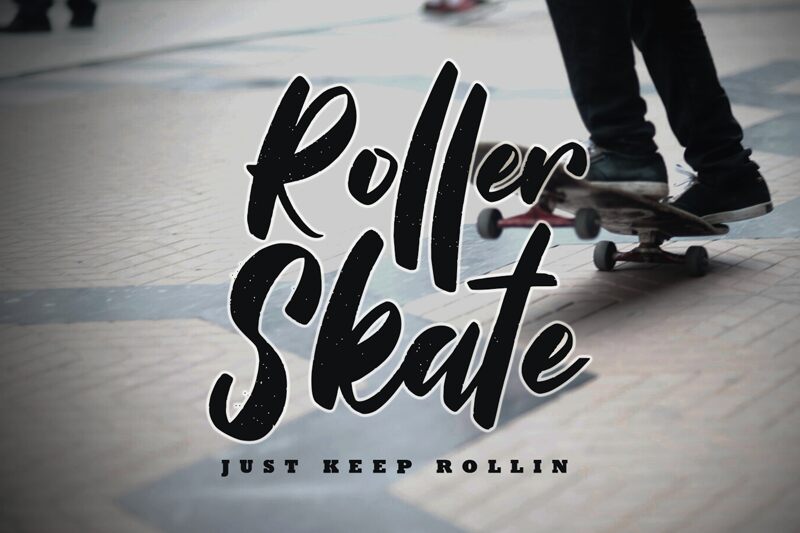
Roller Skate
Roller Skate, the latest brush font by talented designer Mengulirpena_2022 (Deny Dwi Kurniawan), is perfect for adding a touch of fun and whimsy to any project. With its semi-condensed width and playful brush strokes, Roller Skate is suitable for a wide range of projects including children's books, party invitations, social media graphics, and even product packaging. Let your creativity run wild with this versatile typeface that exudes energy and excitement. Stand out from the crowd with Roller Skate - the font that's sure to make your designs roll!